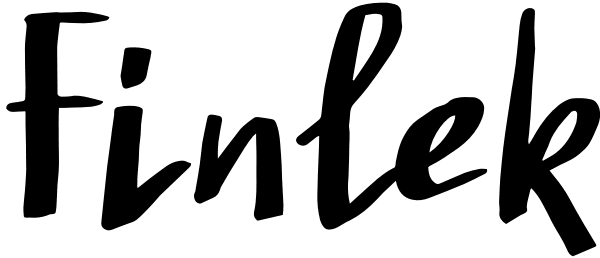
Finlek
Finlek is a handmade typeface with subtle script characteristics. It draws inspiration from two 80s postmodern movements Memphis in Italy and Industrial Post-Punk in England. Contemporary approach to design carries the font into the twenty first...